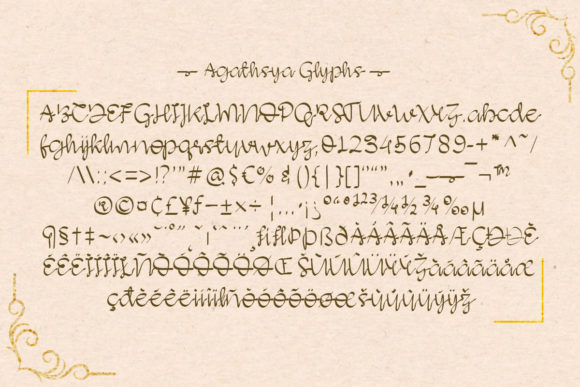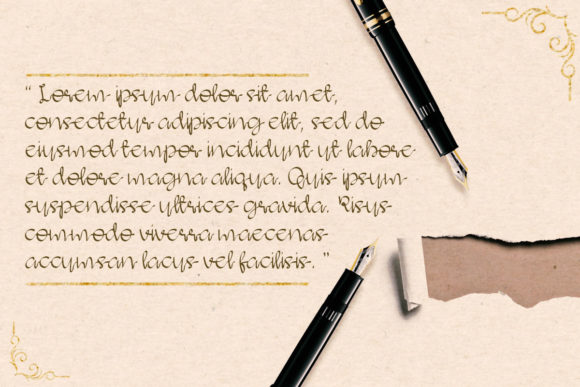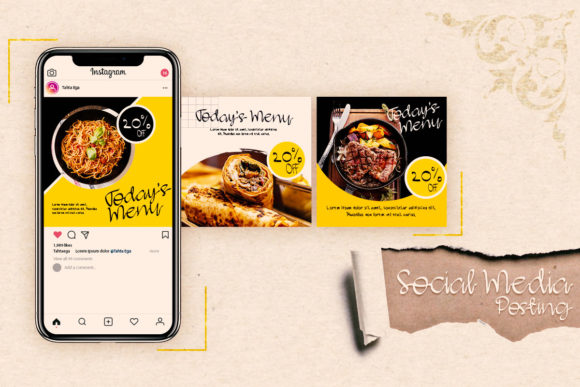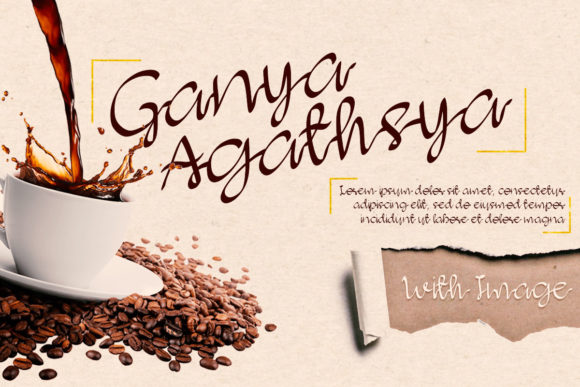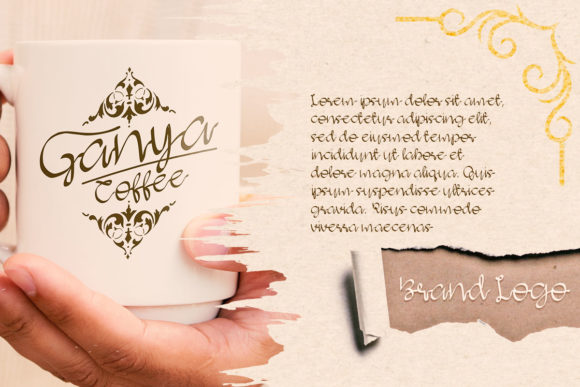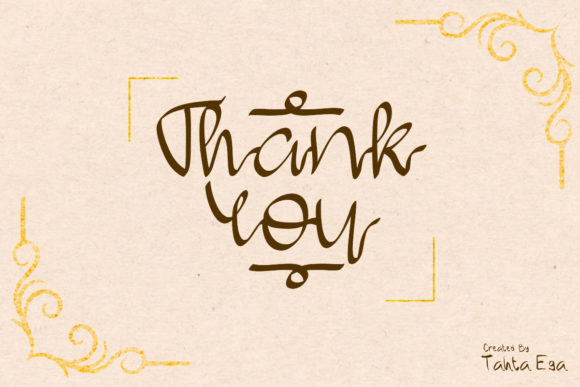
Discover the Beauty of Agathsya Font
Have you ever stared at a blank page, waiting for the perfect font to spark your creativity? For many designers, finding the right font can be the catalyst for a brilliant design. It’s that moment when the words flow effortlessly, and the project starts to come together. For those moments, we have the Agathsya Font – a beautiful and delicate handwritten font that’s sure to elevate your designs.
Agathsya Font is more than just a font – it’s a statement piece. With its unique blend of ethnic characters, it adds a touch of elegance to any design. Whether you’re working on a wedding invitation, a restaurant menu, or a branding project, Agathsya Font is the perfect choice. Its versatility makes it a valuable tool for designers, allowing them to create remarkable designs that stand out from the crowd.
Agathisya Font Key Features
- Font Family: Agathisya, Agathisya Italic, Agathisya Bold, Agathisya Bold Italic
- Character Set: Supports Latin, Cyrillic, and Greek alphabets
- Unique Characteristics: Distinctive, elegant script style with subtle flourishes and intricate details
Agathsya Font Review
Overall, I found the Agathsya font to be quite unique and visually appealing. ✨ Its mix of modern and traditional elements makes it a great choice for projects that require a touch of elegance and sophistication.
Some of the things that work well with Agathsya include:
- Its versatility – the font can be used for a wide range of projects, from logos to body text.
- Its legibility – even at smaller font sizes, Agathsya remains easy to read.
- Its expressive feel – the font conveys a sense of sophistication and refinement.
- ⚠️ Limited language support – Agathsya may not be suitable for projects that require support for non-Latin scripts.
- ⚠️ Not ideal for very small font sizes – while Agathsya remains legible at smaller sizes, it may not be the best choice for projects that require extremely small text.
Overall, I would recommend Agathsya for projects that require a touch of elegance and sophistication. While it may not be suitable for all types of projects, its unique blend of modern and traditional elements makes it a great choice for the right application.
Tips for Getting the Most Out of Agathsya Font
Use Agathsya Font to create visually appealing headings and titles. Experiment with different font sizes and styles to create a unique look. You can also pair Agathsya Font with other fonts to create a balanced and harmonious design.
Agathsya Font is ideal for creating elegant and sophisticated designs, such as wedding invitations, business cards, and brochures. It’s also great for creating headings and titles for presentations and documents.